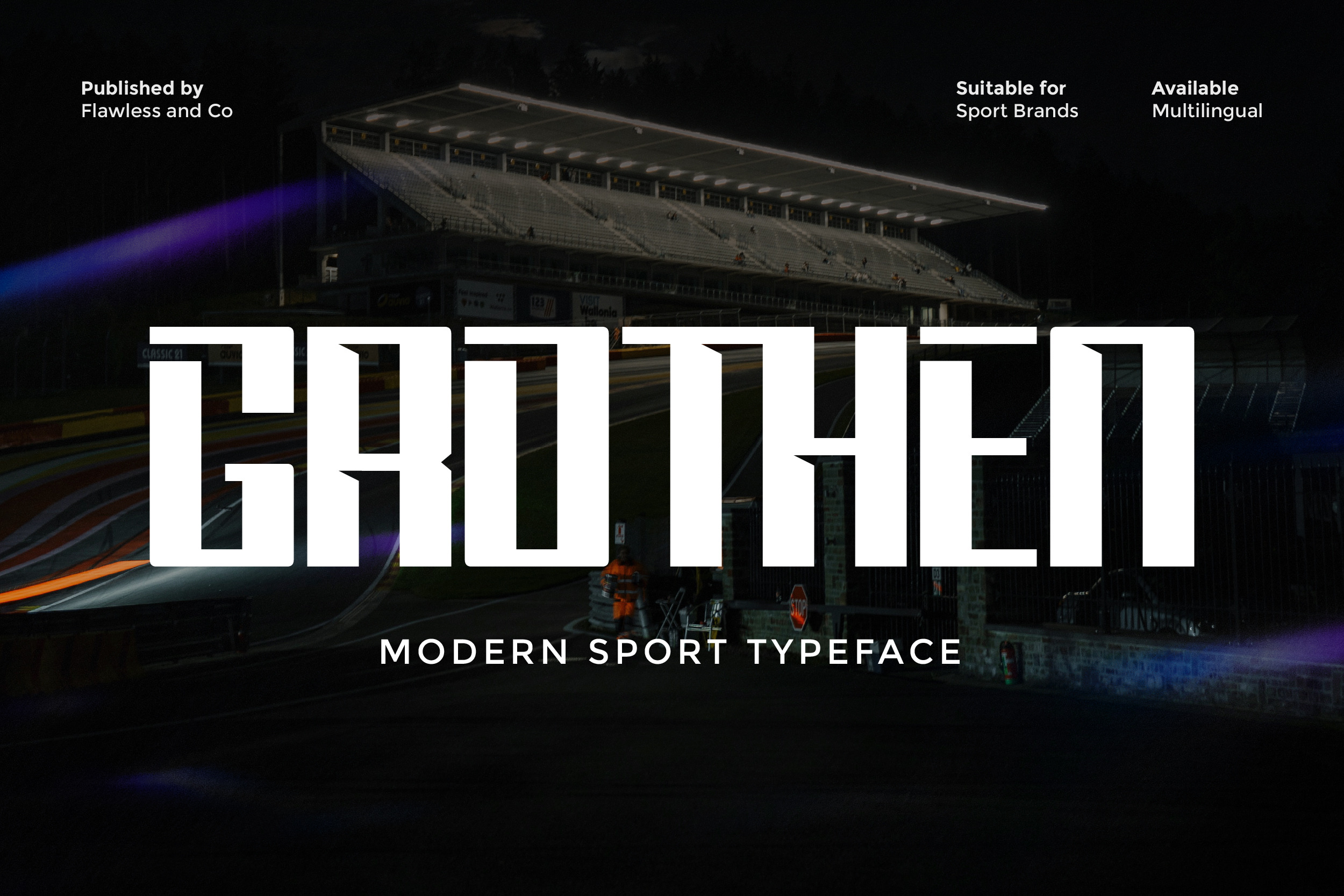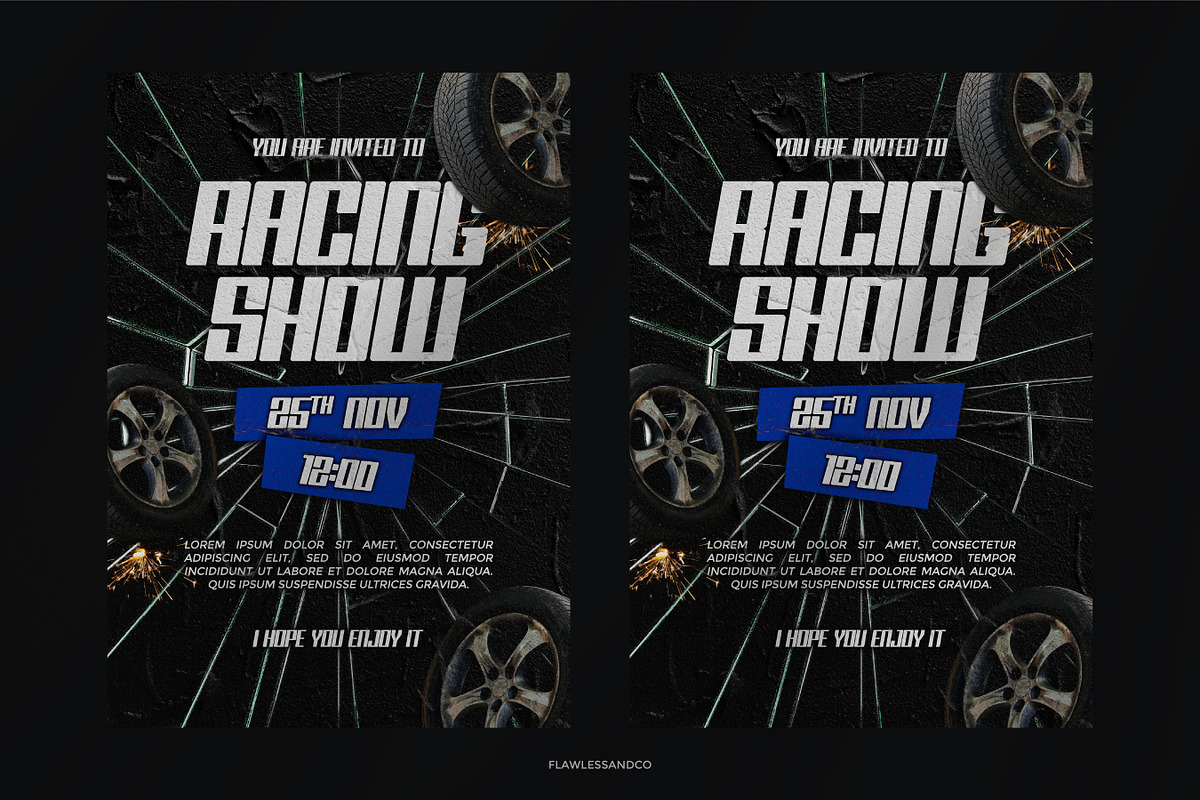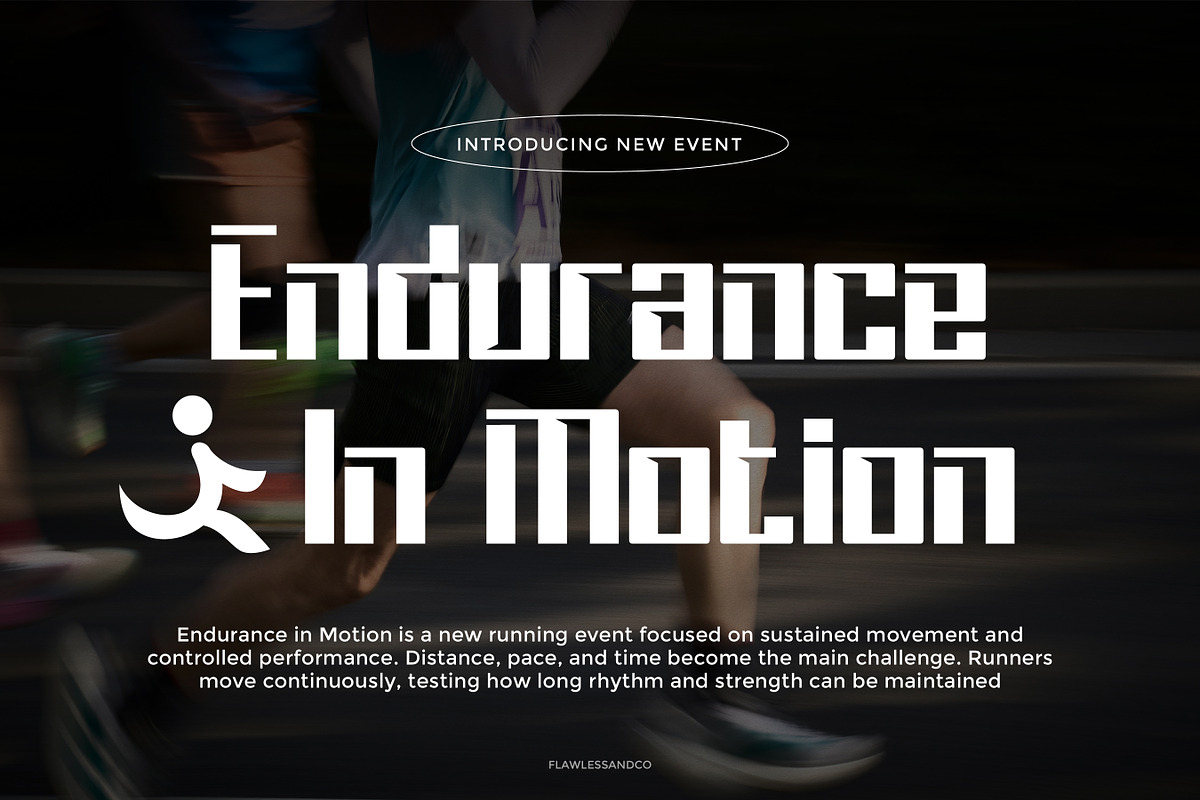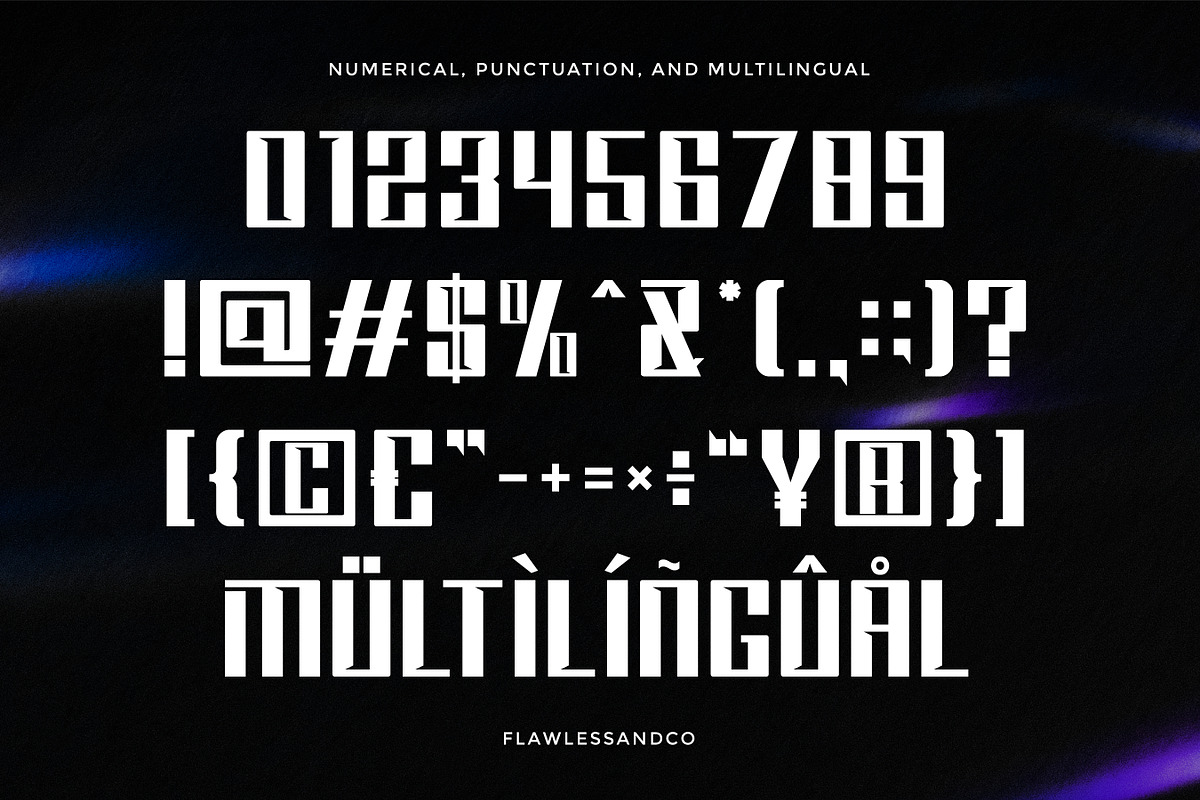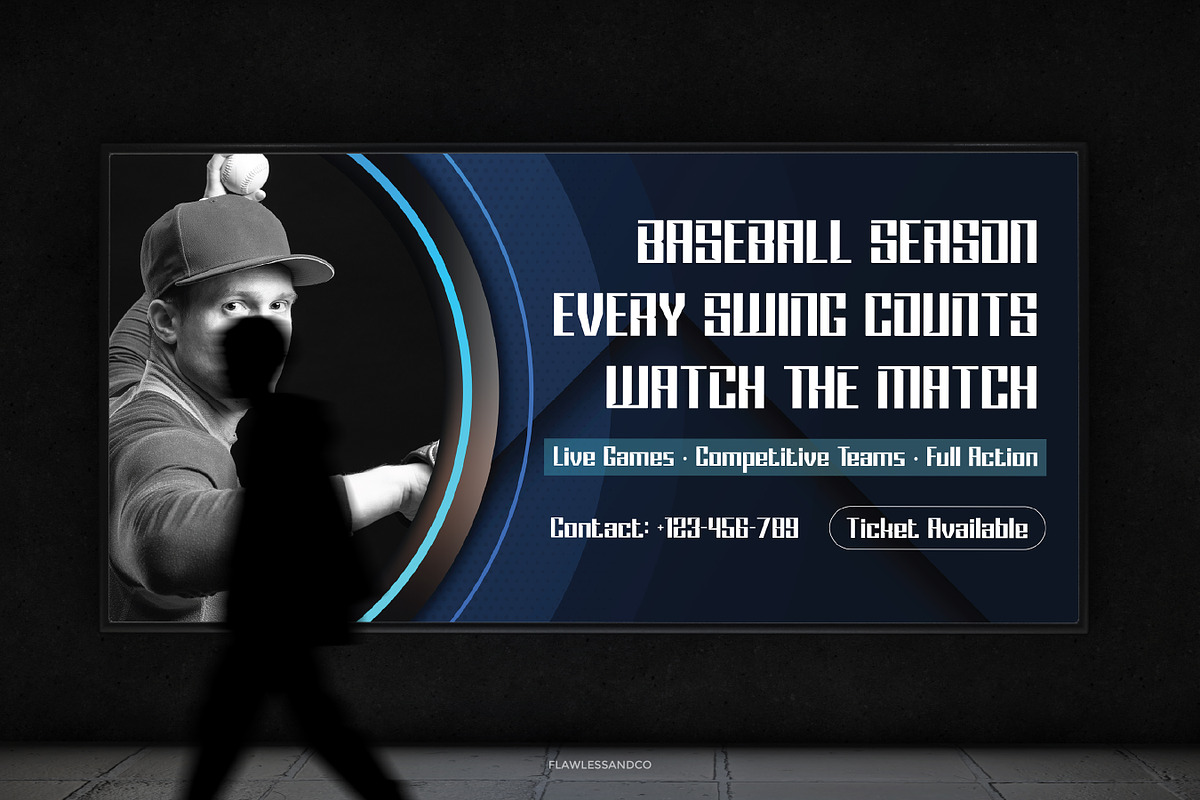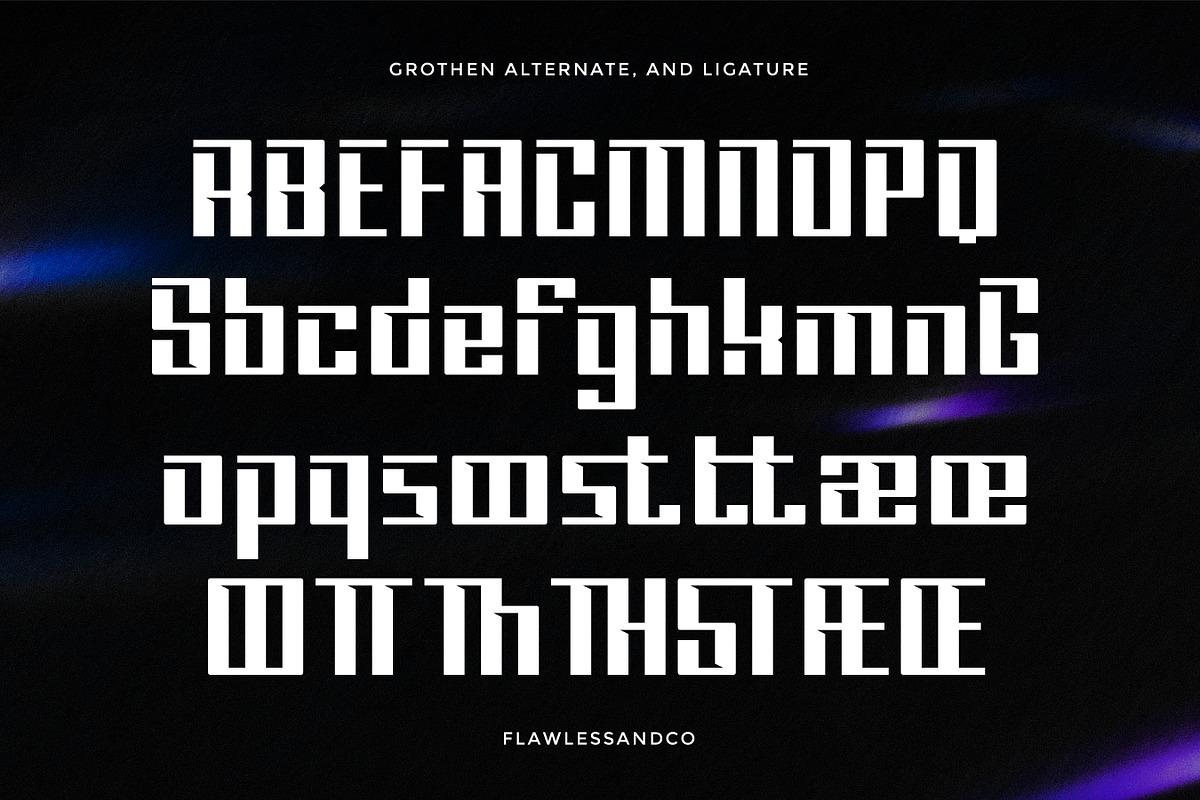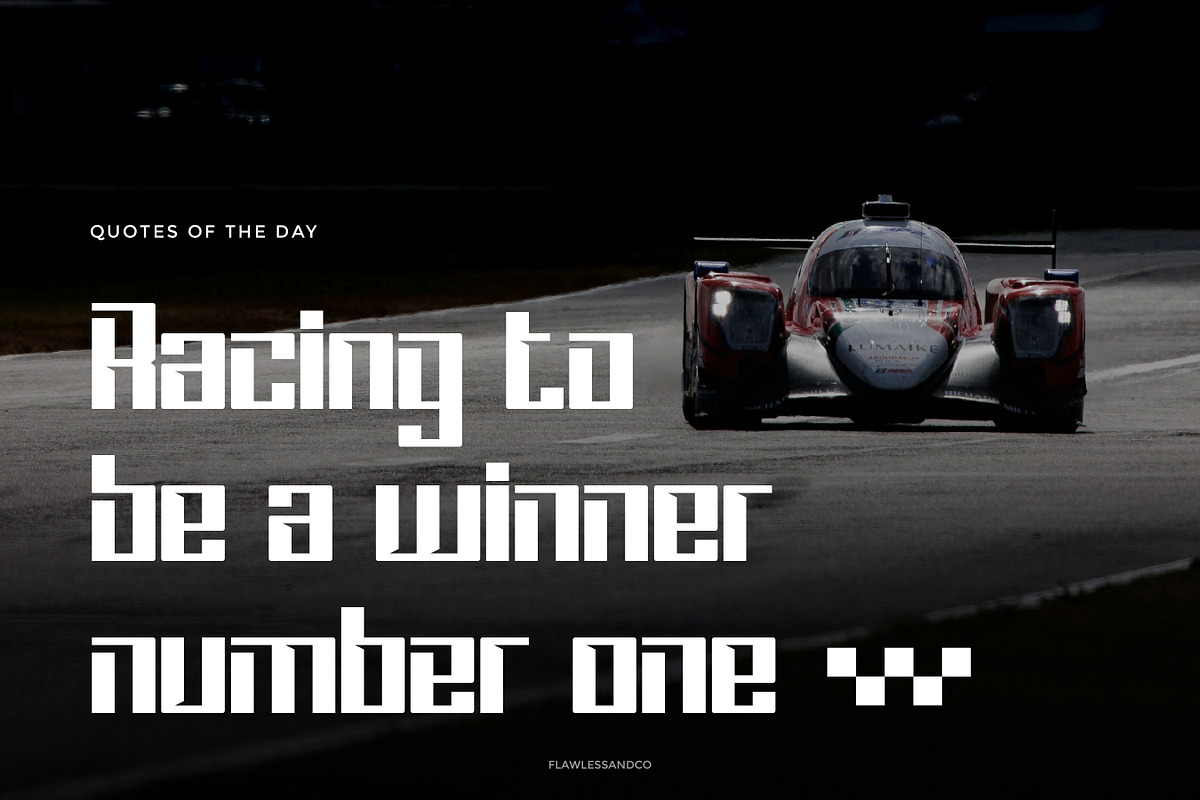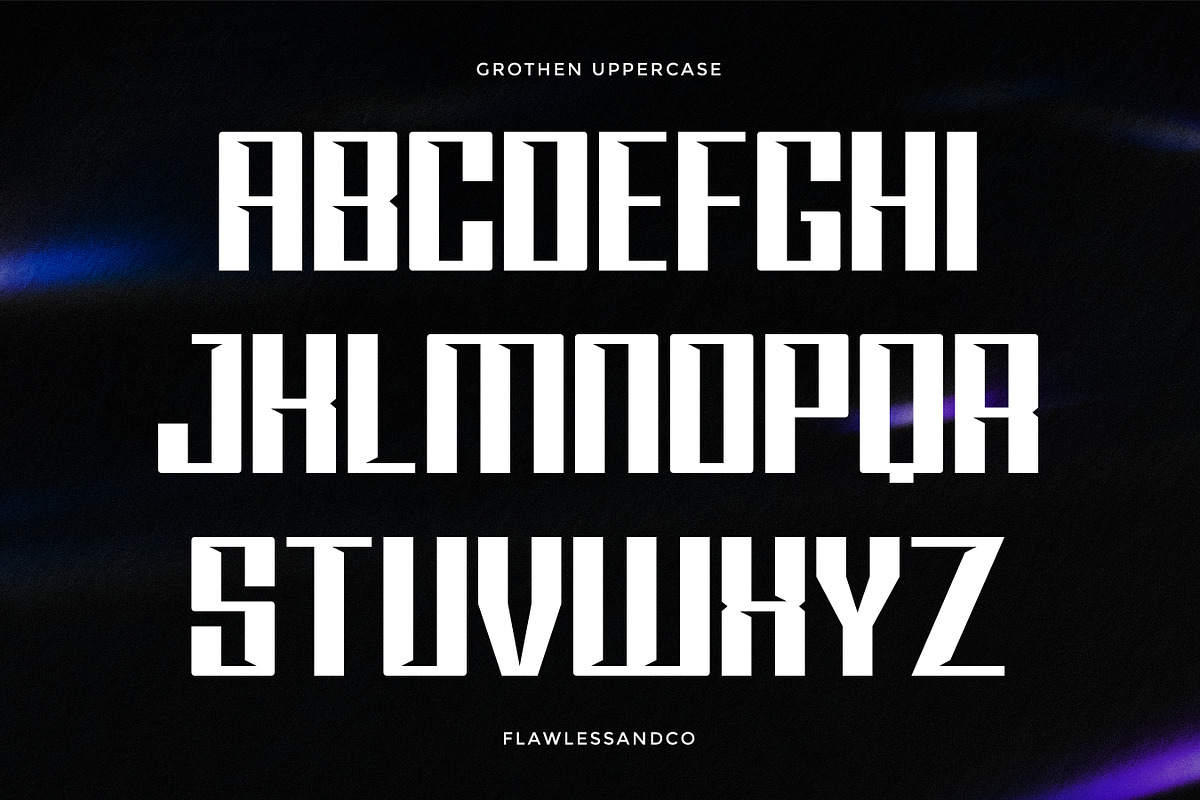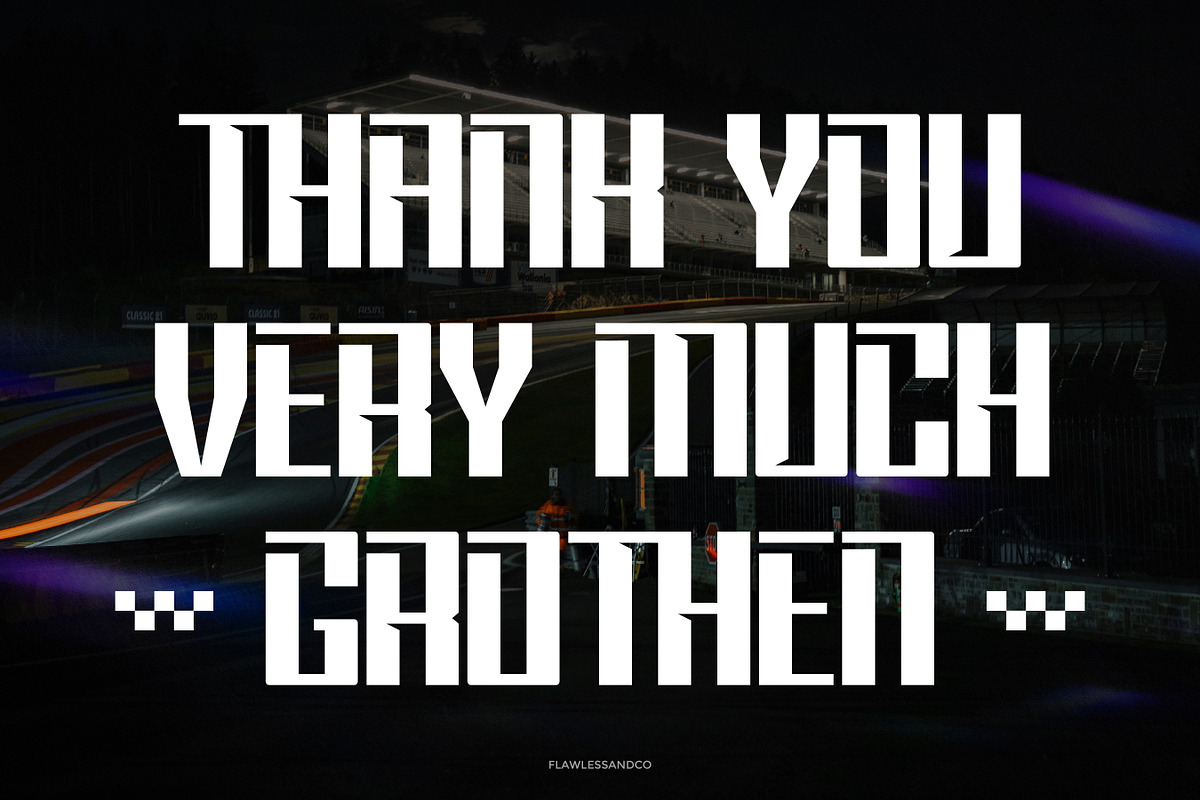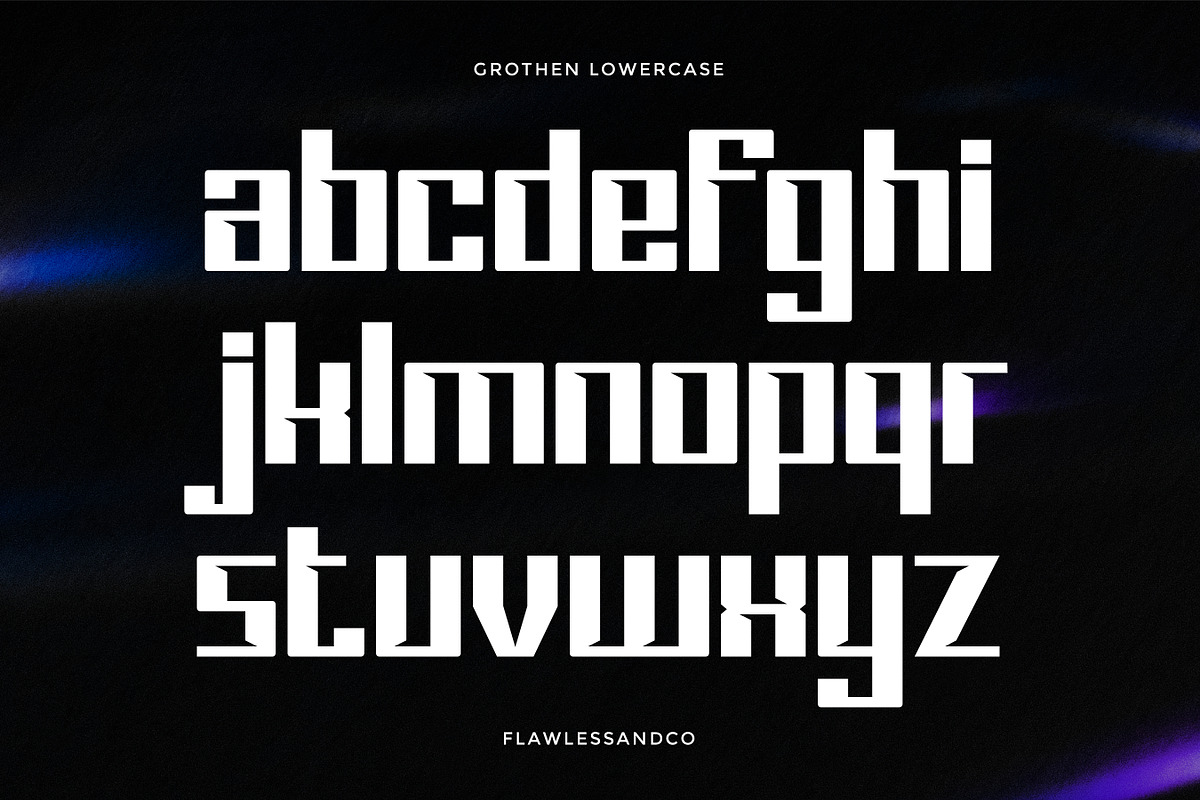
Grothen - Modern Sport Font
Grothen - Modern Sport Sans Serif
Grothen is a bold and energetic modern sport sans serif font designed to deliver strength, speed, and impact in every letter. With its sharp edges, solid structure, and dynamic style, Grothen captures the spirit of athleticism and competition. The font is crafted to stand out in high-impact designs while maintaining clarity and readability, making it perfect for attention-grabbing visuals. Whether you’re working on sports branding or bold headlines, Grothen brings power and confidence to your typography.
Who Should Use Grothen?
Grothen is perfect for designers and creatives who want to create strong, sporty, and dynamic visuals. It’s especially ideal for projects related to sports, fitness, and high-energy branding that require a bold and competitive look.
Suitable For:
- Sports and athletic branding
- Team logos and jerseys
- Fitness and gym designs
- Esports and gaming graphics
- Posters and promotional materials
- Event and competition designs
- Social media graphics with strong impact
- Bold headlines and display typography